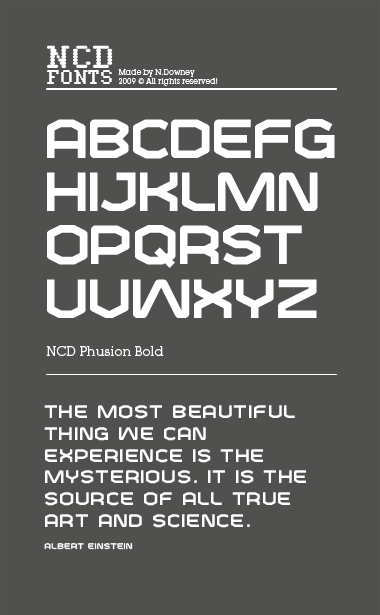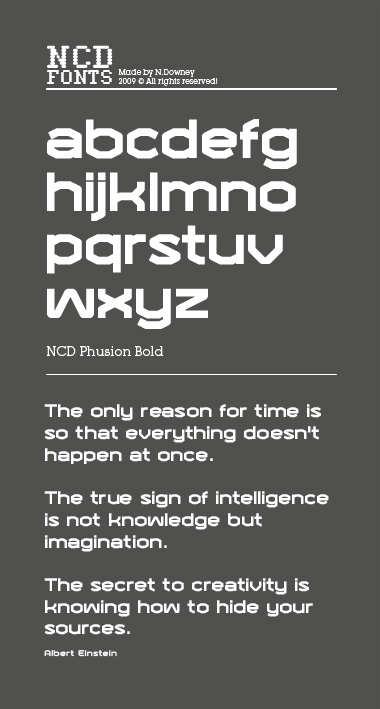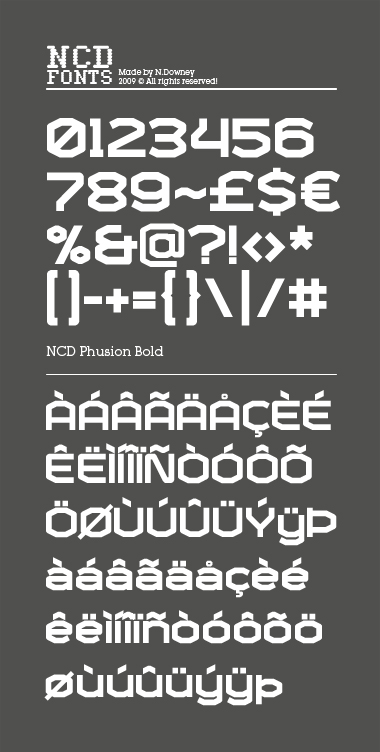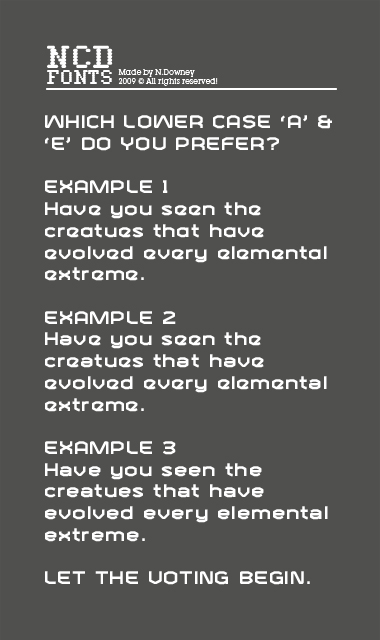
Based on the same grid as NCD PSMagazine, but I've changed 90% of the glyphs, thus creating something a little more original and versatile.
This is the Bold version, plans for Regular and Light are on the table.
Based on the same grid as NCD PSMagazine, but with 90% of the glyphs changed, thus creating something a little more original and versatile.
This is the Bold version, plans for Regular and Light are on the table.
Please check my alternative 'a' & 'e' in the scroll down. I'm still not 100% which ones work best.
I used the 1st 'a' and the last 'e' originally but changed them at the last minute.
I'd love to know what everyone thinks.
What a fabulous achievement this is. That slight downward join in the l/c k crossbar is a masterful bit of finesse. The inward lean of the bowls in the cap B. And a convincing X!
Really nice font !!! Perhaps the g and y should have a little more space between lower part and higger part ? i don't know this is beautifull however !! 10/10 like Frodo7 should say !
@Intaglio You have the eyes of a hawk. I also love the l/c k. I tried the same on the upper case, but somehow it didn't quite work as well.
@Zen_Killa, hello. That has been bothering me, and I agree it would look better, but I decided against it, as this is the Bold version, and the heaviest it will go - the Regular and Thin versions both have a wider gap. It was a tough decision to make, and it does limit the amount of weights I can produce for this font, so I may still change it, after extensive usage testing.
This is the Bold version, plans for Regular and Light are on the table.
Please check my alternative 'a' & 'e' in the scroll down. I'm still not 100% which ones work best.
I used the 1st 'a' and the last 'e' originally but changed them at the last minute.
I'd love to know what everyone thinks.
@Intaglio You have the eyes of a hawk. I also love the l/c k. I tried the same on the upper case, but somehow it didn't quite work as well.
@Zen_Killa, hello. That has been bothering me, and I agree it would look better, but I decided against it, as this is the Bold version, and the heaviest it will go - the Regular and Thin versions both have a wider gap. It was a tough decision to make, and it does limit the amount of weights I can produce for this font, so I may still change it, after extensive usage testing.
My vote on the a & e is also 3